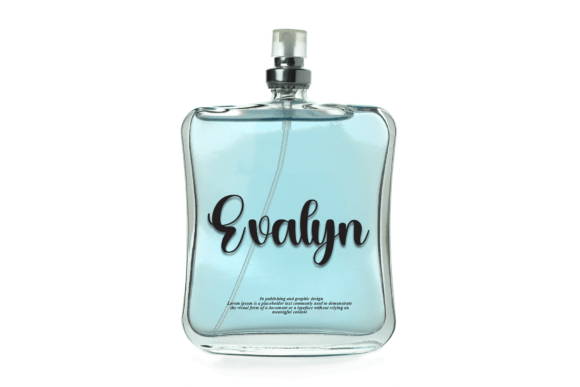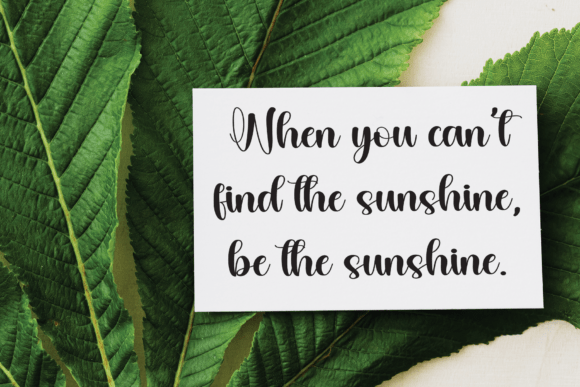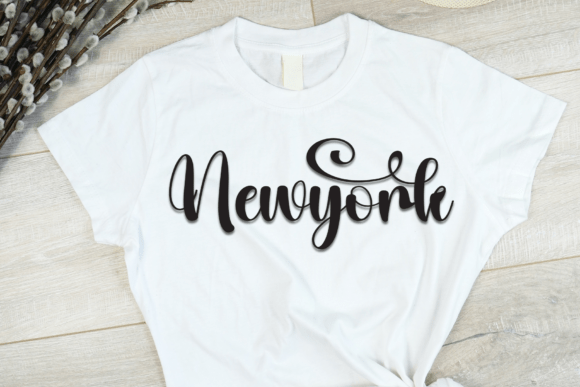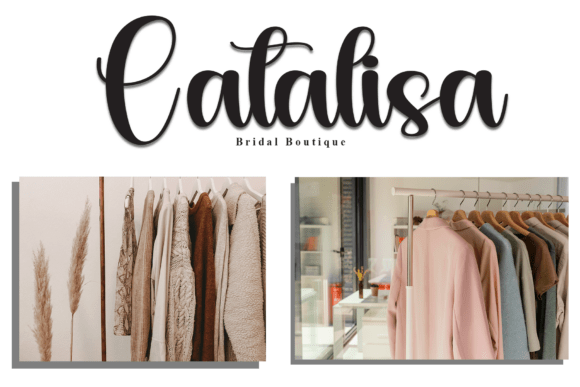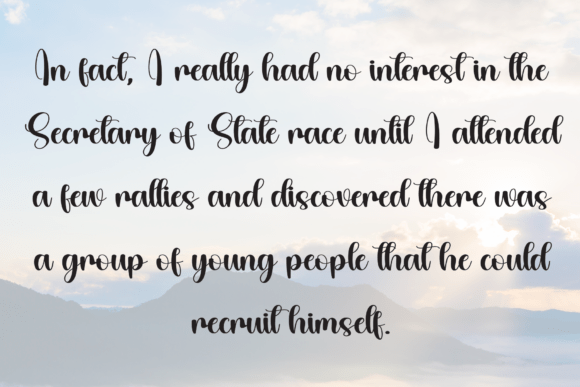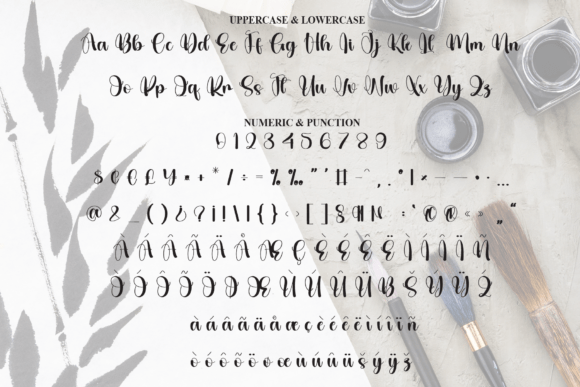
The Brushes Font: A Modern Handwritten Marvel for Creative Projects
I’ll never forget the time I was working on a branding project for a trendy new coffee shop. My client wanted a font that was both elegant and energetic, but I was struggling to find the perfect fit. That’s when I stumbled upon the Brushes font, a modern handwritten font with a bold brush script style that instantly caught my eye. With its expressive strokes and touch of flair, it was love at first sight! 💕
In this article, I’ll share my experience with the Brushes font, including what I love about it, some quirks to be aware of, and practical tips on how to use it in your designs. Whether you’re a designer, crafter, or creative hobbyist, you’ll want to stick around to learn more about this versatile font.
An Honest Review: What I Love (and What to Watch Out For) 🤔
- 💥 Expressive strokes and a bold brush script style that adds energy to any project
- 🎨 Perfect for artistic branding, product packaging, or creative quotes
- 👍 Highly legible, even at smaller font sizes
- 💻 Compatible with OpenType features, glyphs, and stylistic alternates
- 🤔 May not be the best choice for very formal or traditional designs
- ⚠️ Some users have reported issues with kerning at very large font sizes
The Designer Inspiration Behind Brushes Font
The Brushes font was designed with the modern creative in mind. Its bold brush script style is inspired by the expressive strokes of a paintbrush, with a touch of elegance and sophistication. Whether you’re a designer, artist, or crafter, this font is sure to add a personal touch to your projects.
Q: What type of projects is the Brushes font best suited for?
A: The Brushes font is perfect for artistic branding, product packaging, creative quotes, and any project that needs a bold, energetic feel.
Q: Is the Brushes font suitable for body text or long-form content?
A: While the Brushes font is highly legible, it’s best suited for headlines, titles, or short-form content. For body text or long-form content, a more traditional font may be more suitable.